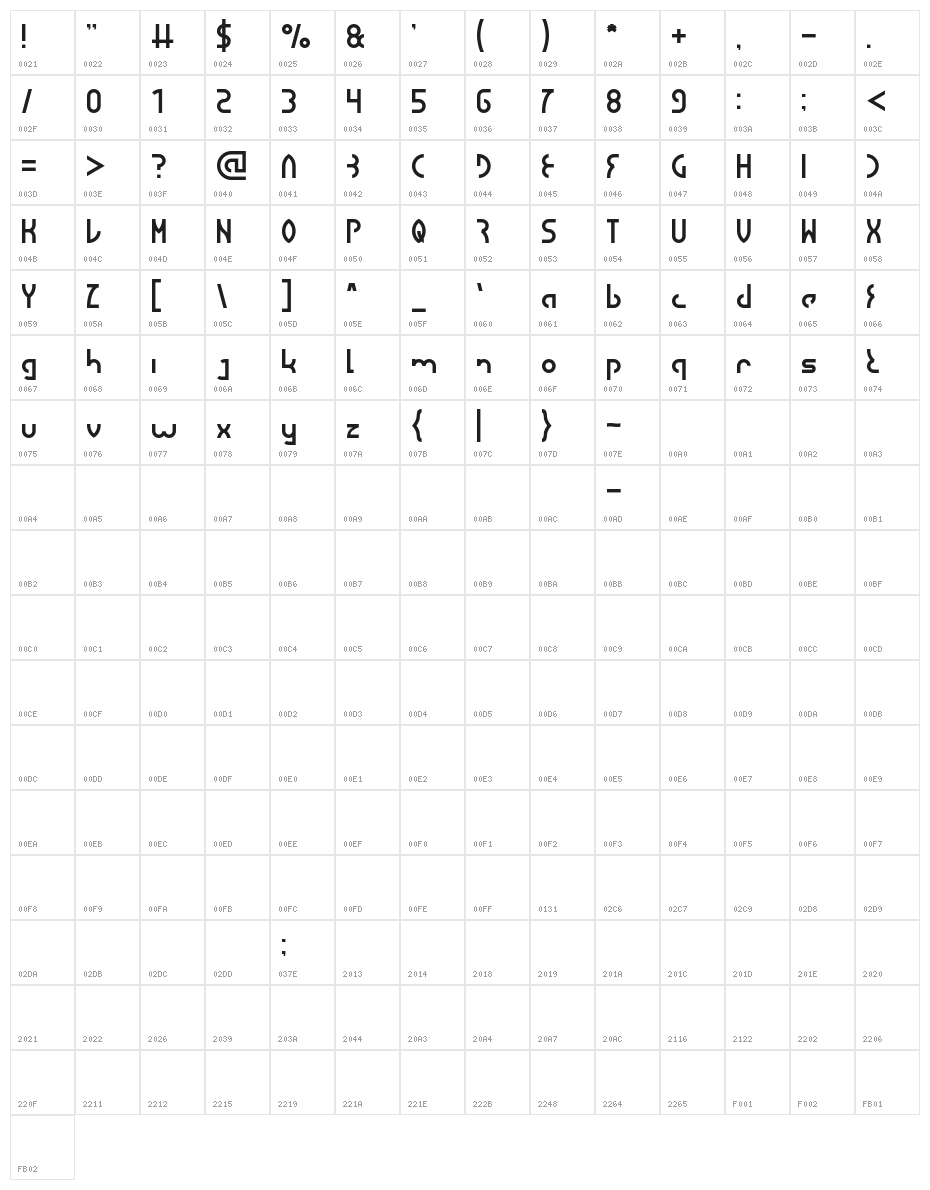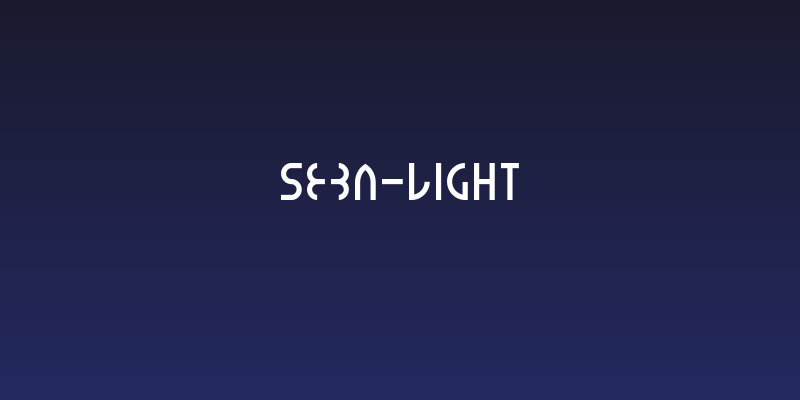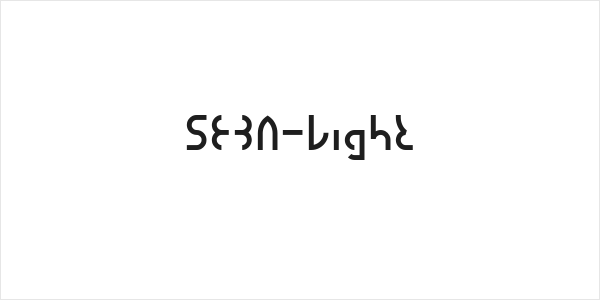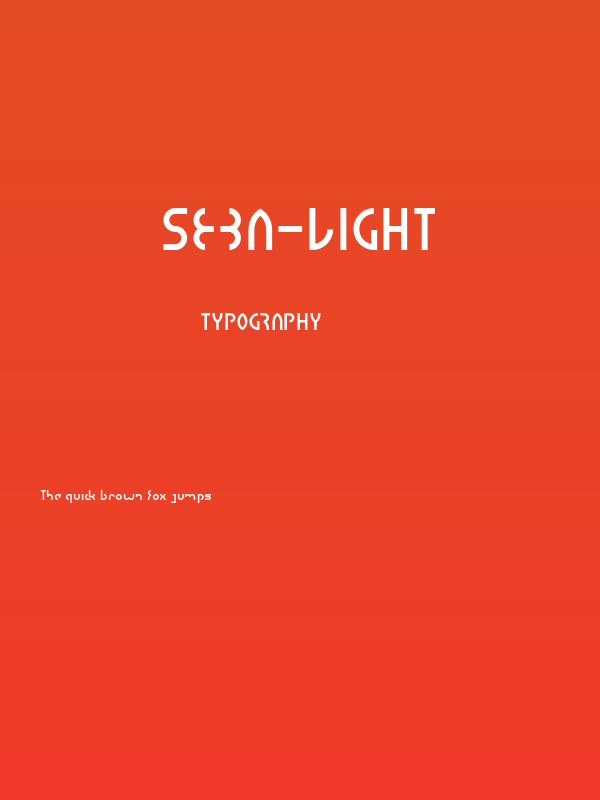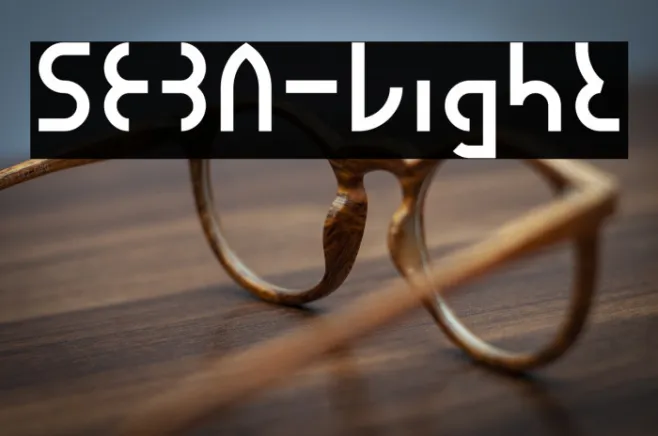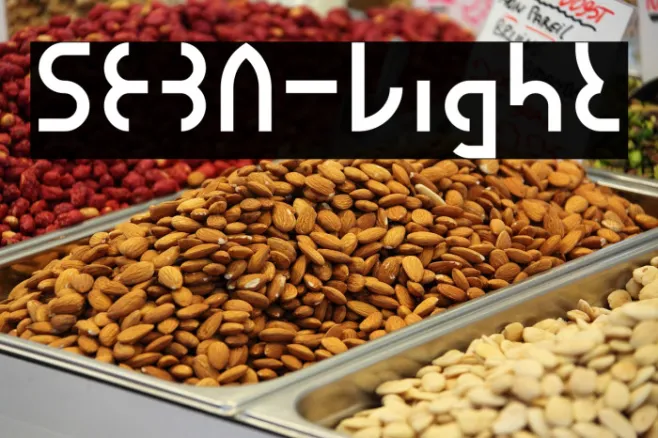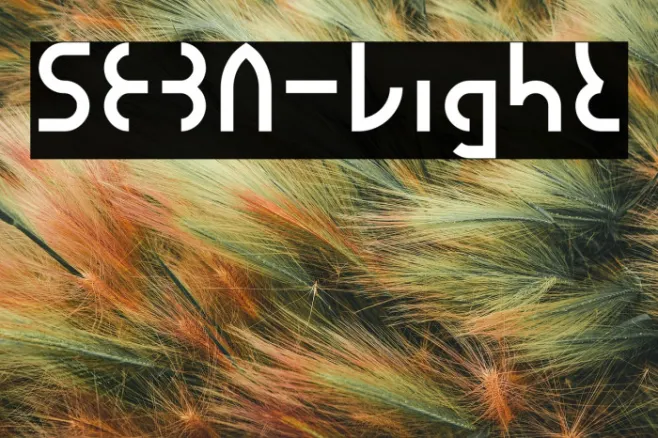
SEBA-Light Font
SEBA-Light Description
This font features a unique and modern design with a geometric and futuristic aesthetic. The characters are bold and have a distinct, angular style that gives them a strong presence. The uppercase letters are particularly striking, with sharp edges and clean lines that create a sense of movement and energy. The lowercase letters maintain this angular theme, offering a cohesive look across the typeface. The numbers are equally bold and geometric, ensuring consistency throughout. Special characters are designed to match the overall style, making this font versatile for various applications.
SEBA-LIGHT UPPERCASE
SEBA-LIGHT LOWERCASE
SEBA-LIGHT OTHER CHARS
| Proposed Projects | Ideal for branding, posters, and digital media where a modern and striking appearance is desired. |